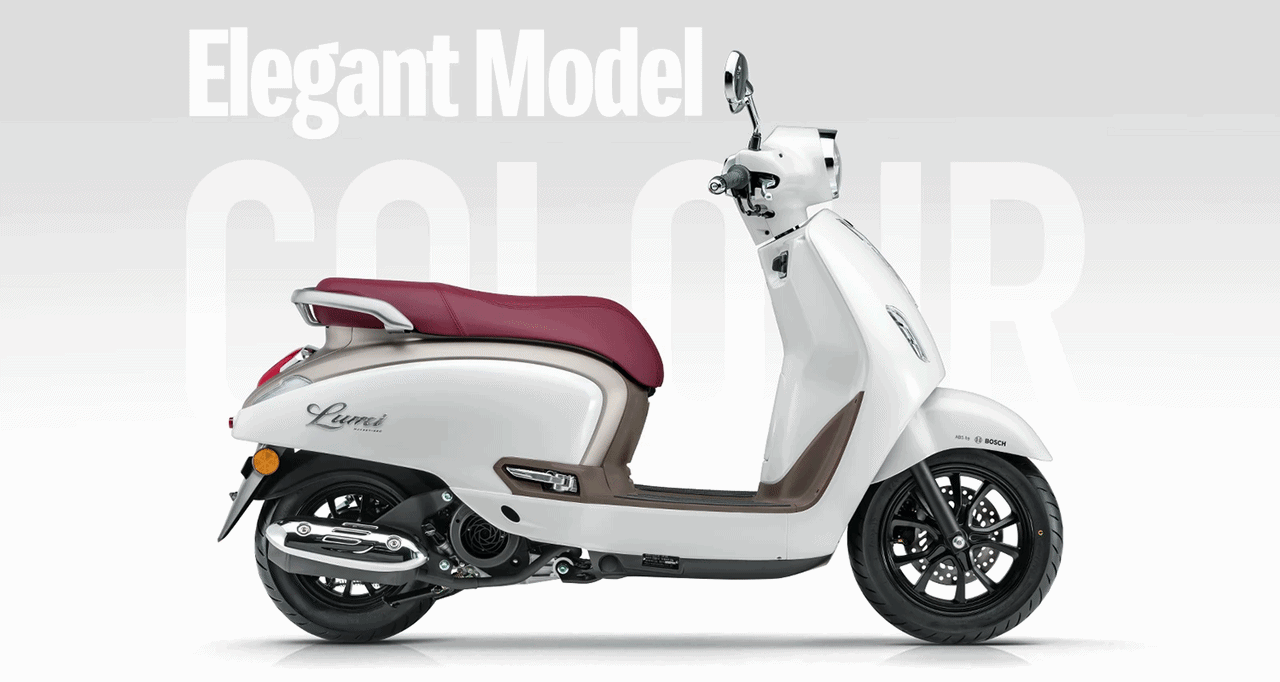
A woman wearing a yellow T-shirt, white skirt, yellow sneakers, and a white helmet is riding a white electric scooter with a red seat. The scooter has the word "Lumi" written on the side. She is moving past a yellow and gray wall, and the background shows motion blur with overlaying white cursive text that says "Lumi" multiple times.
Lumi
Haojue set out to create a new scooter inspired by the timeless appeal of the Italian Vespa, blending classic styling with modern engineering. My role was to design a wordmark that felt premium, elegant, and distinctly Italian while complementing the scooter's contemporary form. The challenge was finding the right balance between heritage and performance. Creating lettering that conveyed sophistication without feeling overly decorative or nostalgic.
Close-up of a white scooter with black rubber boots, showing the side and rear. The scooter has a "Lumi" logo on the side and rear. The background shows water splashing, indicating movement or wet conditions.
Following extensive research and dozens of iterations, the design evolved significantly through client feedback. The resulting wordmark strikes a balance between classic script elegance and modern precision, becoming a defining element of the Lumi's identity. Today, the logo has been applied to more than 30,000 scooters across China and was later adopted by Suzuki, Haojue's parent company.
A white electric scooter with a maroon seat, displayed against a light gray background with the words "Elegant Model" and "Color" in large text.
A smiling woman in a yellow shirt and white pants sitting on a white and red scooter against a pink background with the word 'Lumi' in silver script.
Collage of images showing various scooters and a girl riding one, wearing a helmet. The scooters are in different colors: pink, cream, and teal, with the word 'Lumi' written on some of them.
Close-up of a vintage Lambretta scooter with a white body, a red seat, and a silver handlebar.
A woman standing beside a white electric scooter with a maroon seat against a pink background.